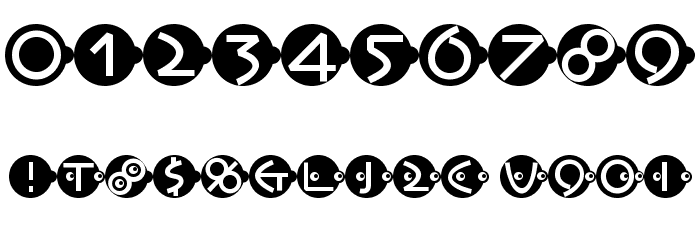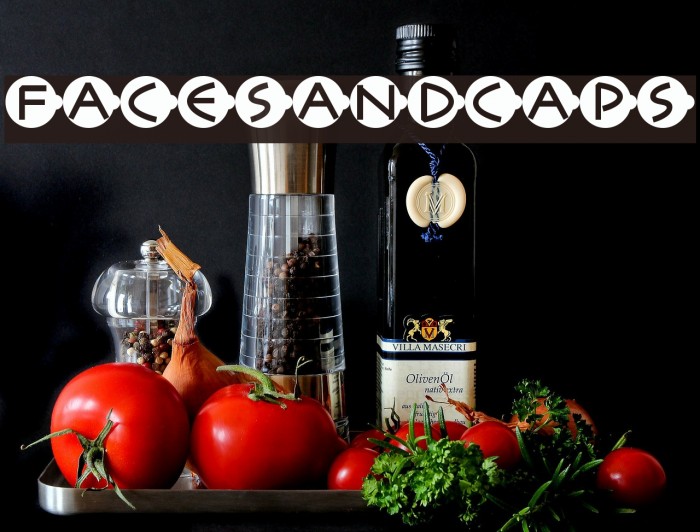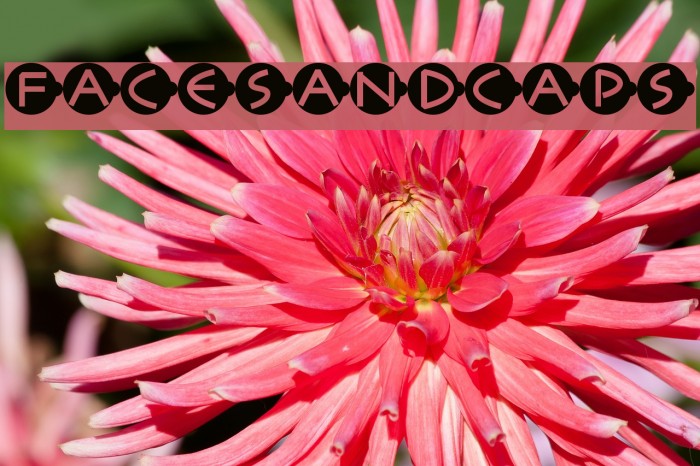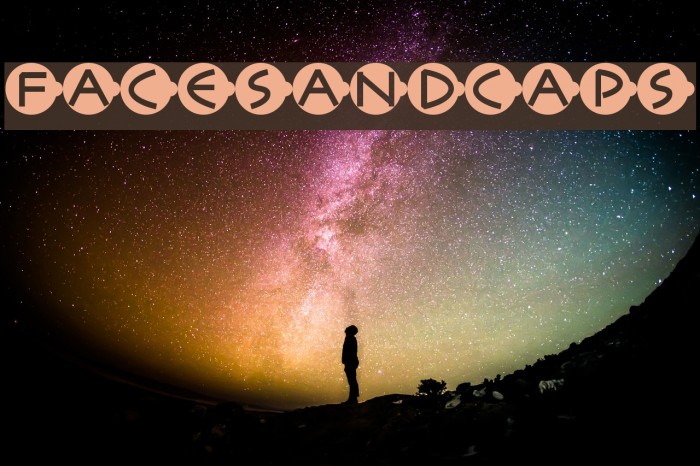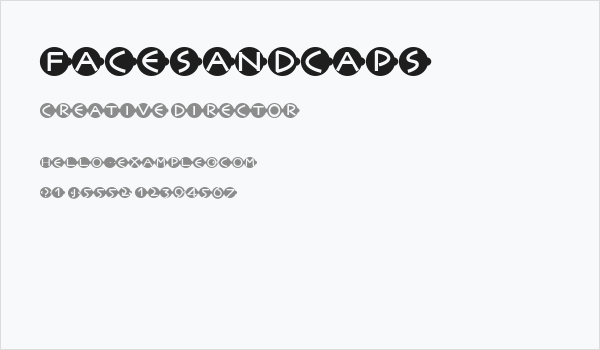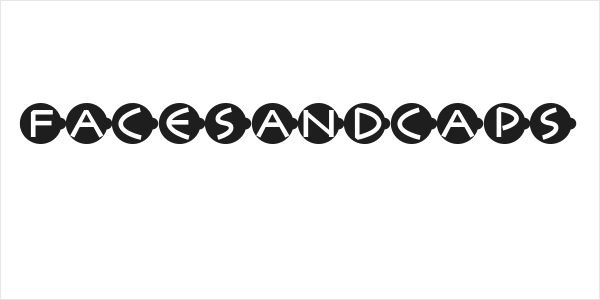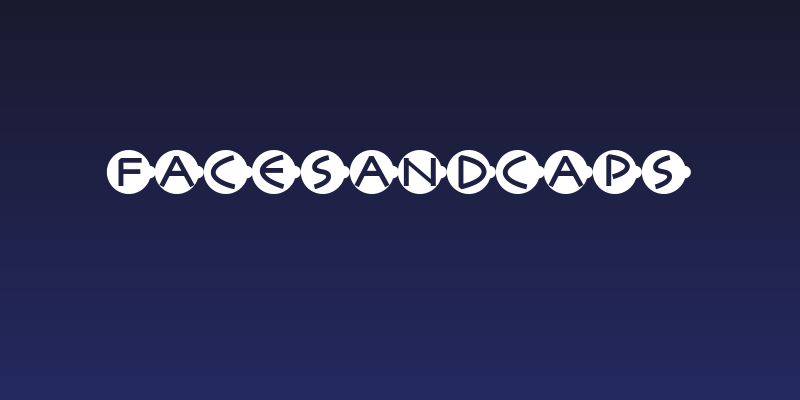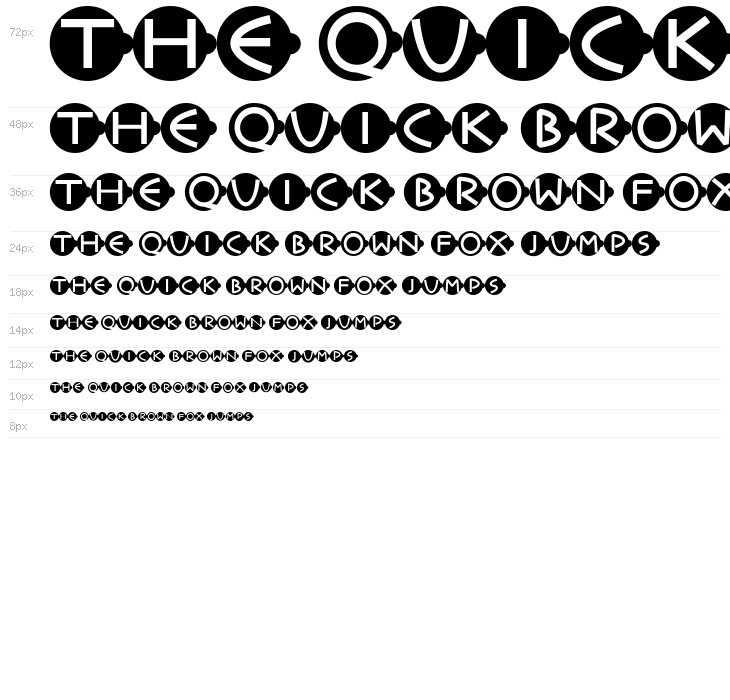
FacesAndCaps Font
FacesAndCaps Description
This font features a unique design where each character is enclosed within a circular shape, creating a bold and striking visual impact. The letters and numbers are crafted with geometric precision, incorporating both straight lines and curves that give a modern and futuristic feel. The use of negative space within the circles enhances readability while maintaining the artistic integrity of the design. This font is highly decorative, making it ideal for projects that require a strong visual statement. The consistent use of circles around each character provides a cohesive look across all glyphs, including special characters.
| Use Case | Logos, Posters, Album covers |
| Proposed Projects | Ideal for logos, posters, album covers, and any design project that requires a bold and artistic touch. |